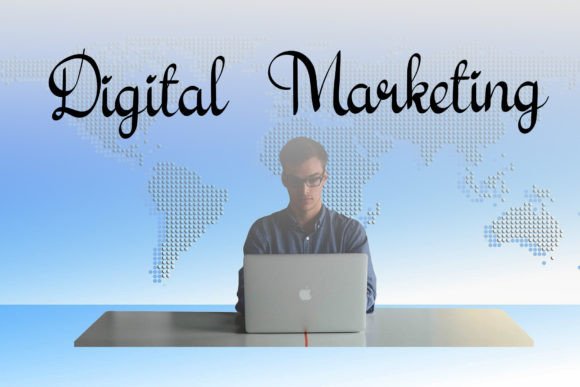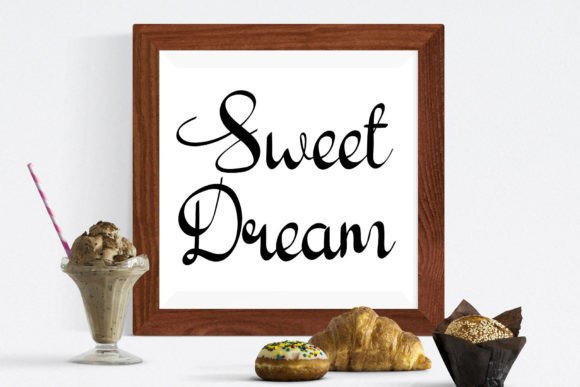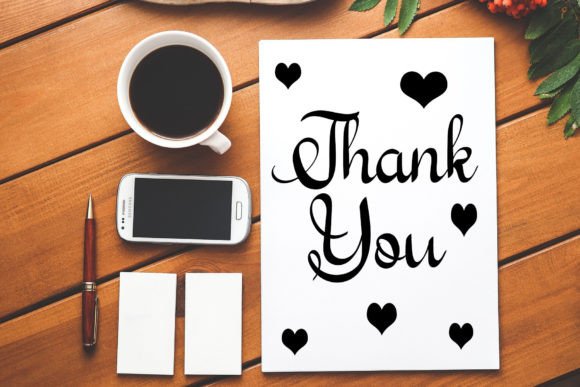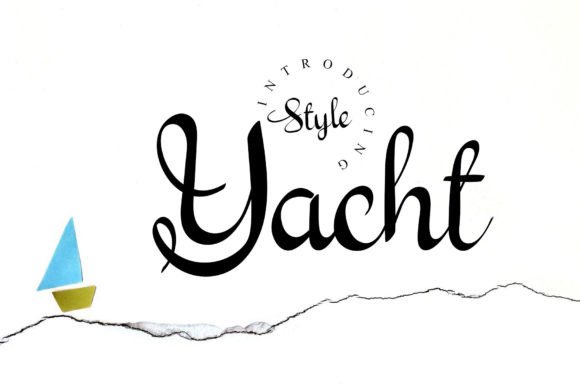
Yacht Font
✨ About Yacht Font
Yacht is a unique and elegant handwritten font that combines natural curves with modern sophistication. Designed to feel both luxurious and personal, this font adds a handcrafted touch to any design project. Its varied baseline and smooth strokes mimic real handwriting, making it an ideal choice for creative work that demands authenticity and elegance.
Whether you’re designing upscale wedding invitations, stylish branding, or heartfelt greeting cards, Yacht delivers visual charm and expressive character in every letter. It strikes the perfect balance between delicate style and professional polish.
🖋️ Perfect for Creative & Elegant Design
Yacht’s graceful forms make it a standout choice across a wide range of applications. Its flowing script and natural rhythm bring warmth and personality to every design it graces.
Ideal for:
• Wedding Invitations & Stationery – romantic, elegant, and timeless
• Greeting Cards & Love Notes – intimate and personal
• Billboards & Posters – stylish and attention-grabbing
• Branding & Logos – luxurious and custom-feeling
• Business Cards – modern with a handcrafted edge
• Social Media Graphics – eye-catching and friendly
• Packaging & Labels – for artisan or boutique-style products
From small details to headline use, Yacht maintains both legibility and visual interest.
🌟 Key Features
• Elegant handwritten script style
• Natural, hand-drawn strokes
• Varied baseline for a dynamic feel
• Uppercase and lowercase letters
• Full punctuation, numerals, and symbols
• Multilingual support
The subtle irregularities and flourishes in Yacht add a custom, human touch, giving your designs authenticity and charm.
💡 Why Choose Yacht?
If you’re looking for a font that feels personal, high-end, and creative, Yacht is the perfect fit. Its hand-drawn appearance and elegant flow make it ideal for designers seeking both refinement and character in their typography.
Whether you’re a brand designer, event planner, stationery artist, or DIY enthusiast, Yacht gives your project a bespoke, polished finish with minimal effort. Its ease of use and professional design quality make it a true go-to script font.